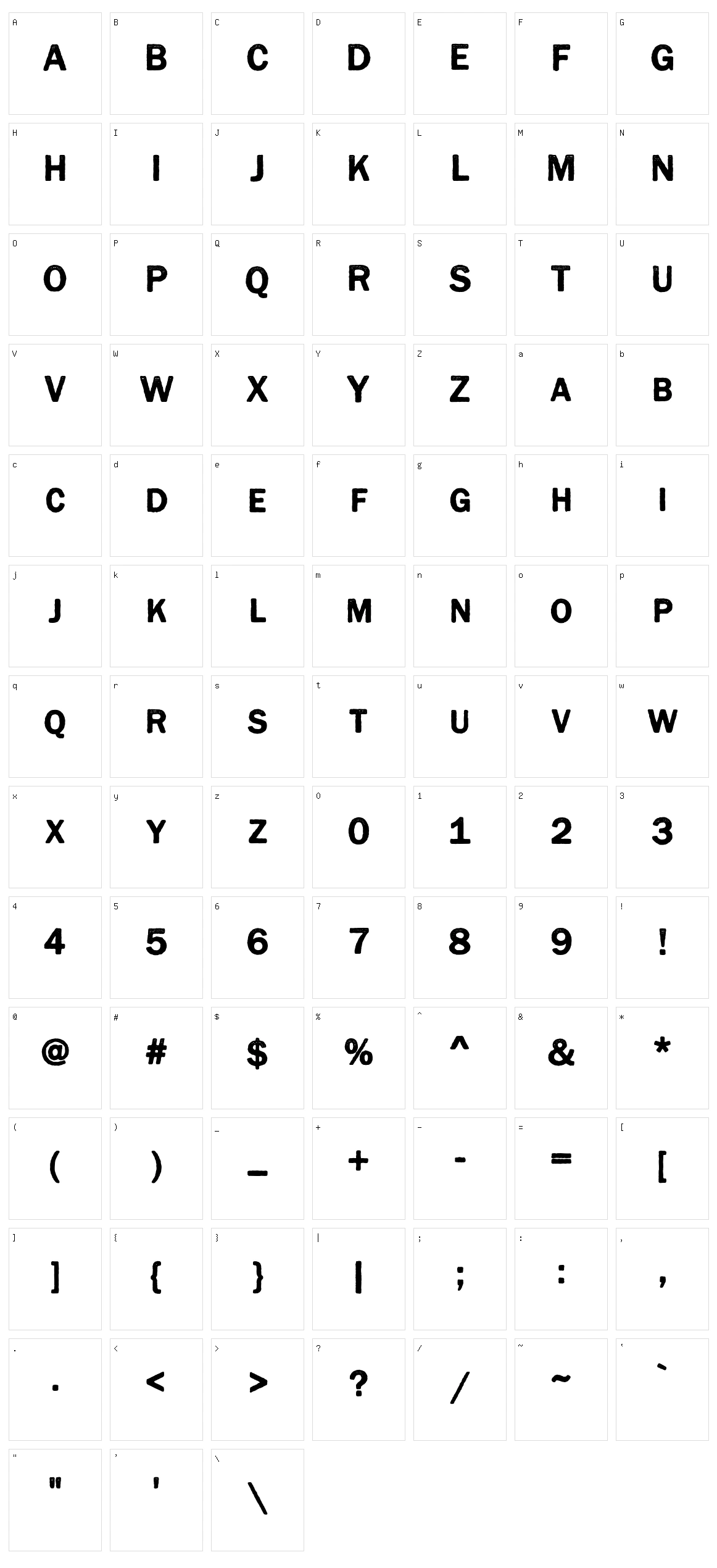
CYNOCEL POSTER
A Font by S. John Ross
The origin of this font isn't particularly romantic, except that it is. The unromantic part is that it's my "getting back into practice for regular font design" project after having gotten a bit rusty lately, and it's a pretty basic, straightforward stress-font with just a bit of internal-damage 'frosting' along the tops of the taller glyphs. The more romantic part is that it's the first font my wife, Sandra, helped me construct. While I'm to blame for the design, she did excellent work assembling it for me, helping me past one of the key "bottlenecks" that prevents me from making as many fonts as I otherwise might. Helping me seems to make her kind of giddy-happy for some reason, too, so that bodes well for an increased output going forward! Either way, it was a lot of fun showing her how I do things and working together with her on a project.
CYNOCEL POSTER is a full-U.S.-keyboard small-caps font.